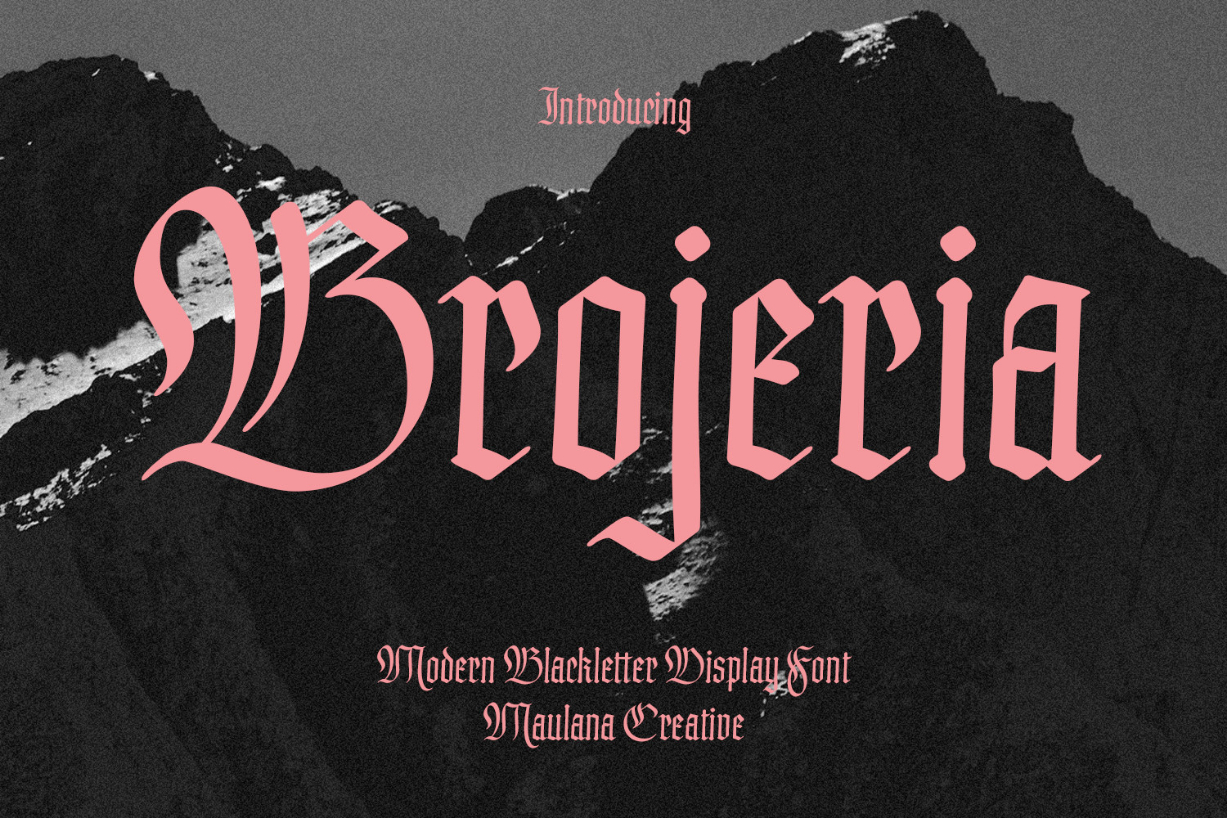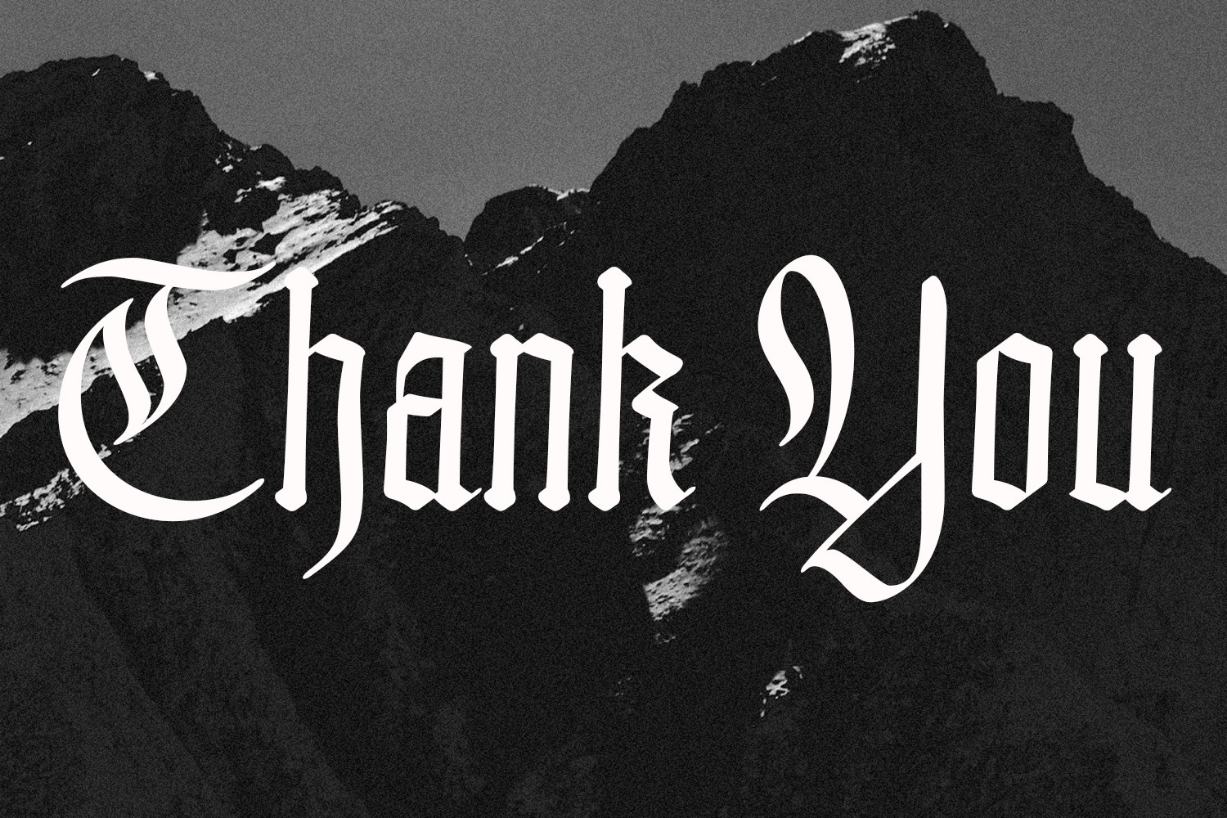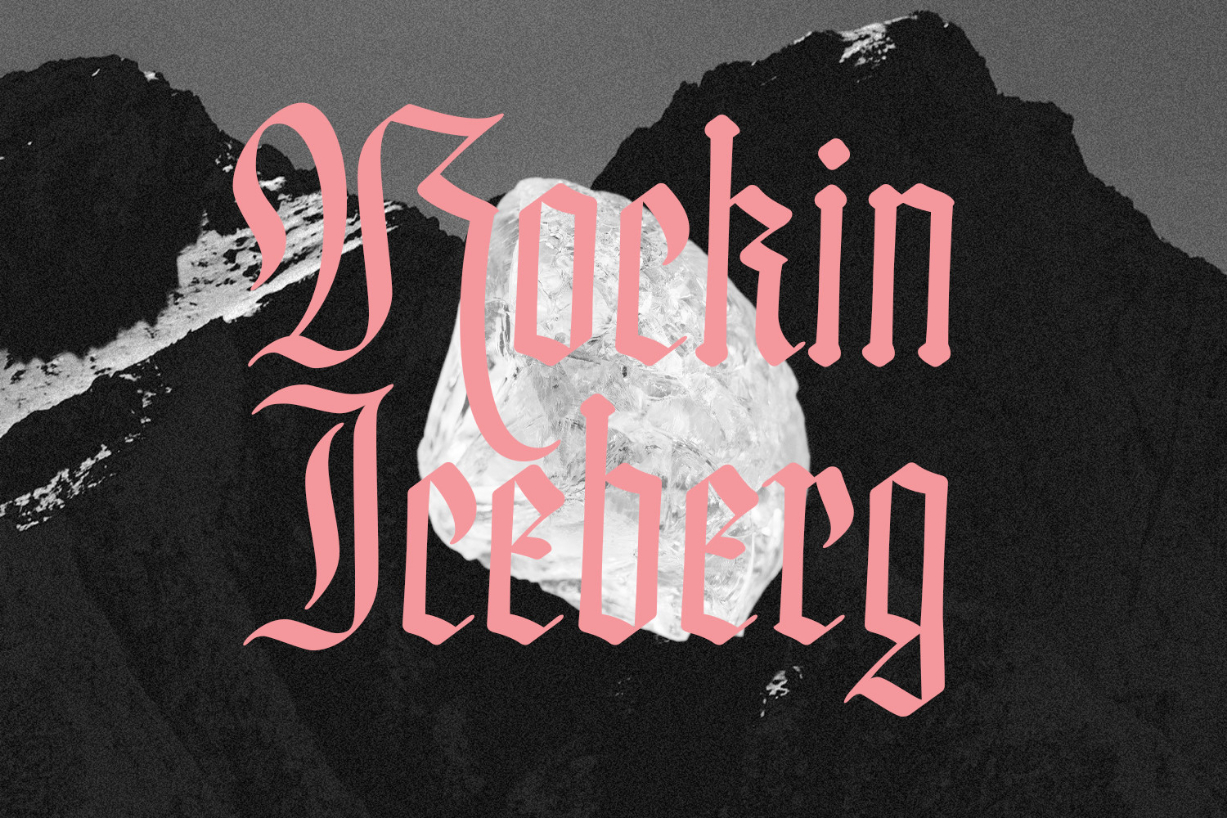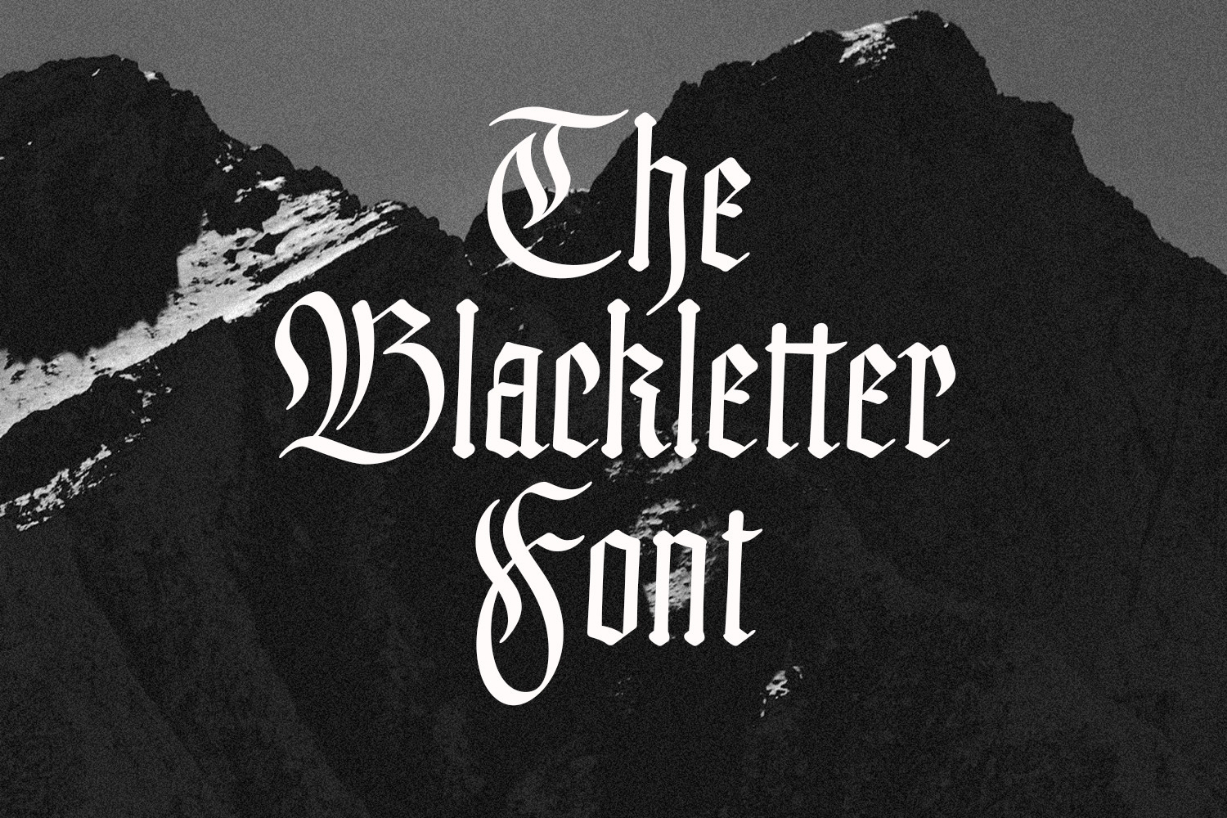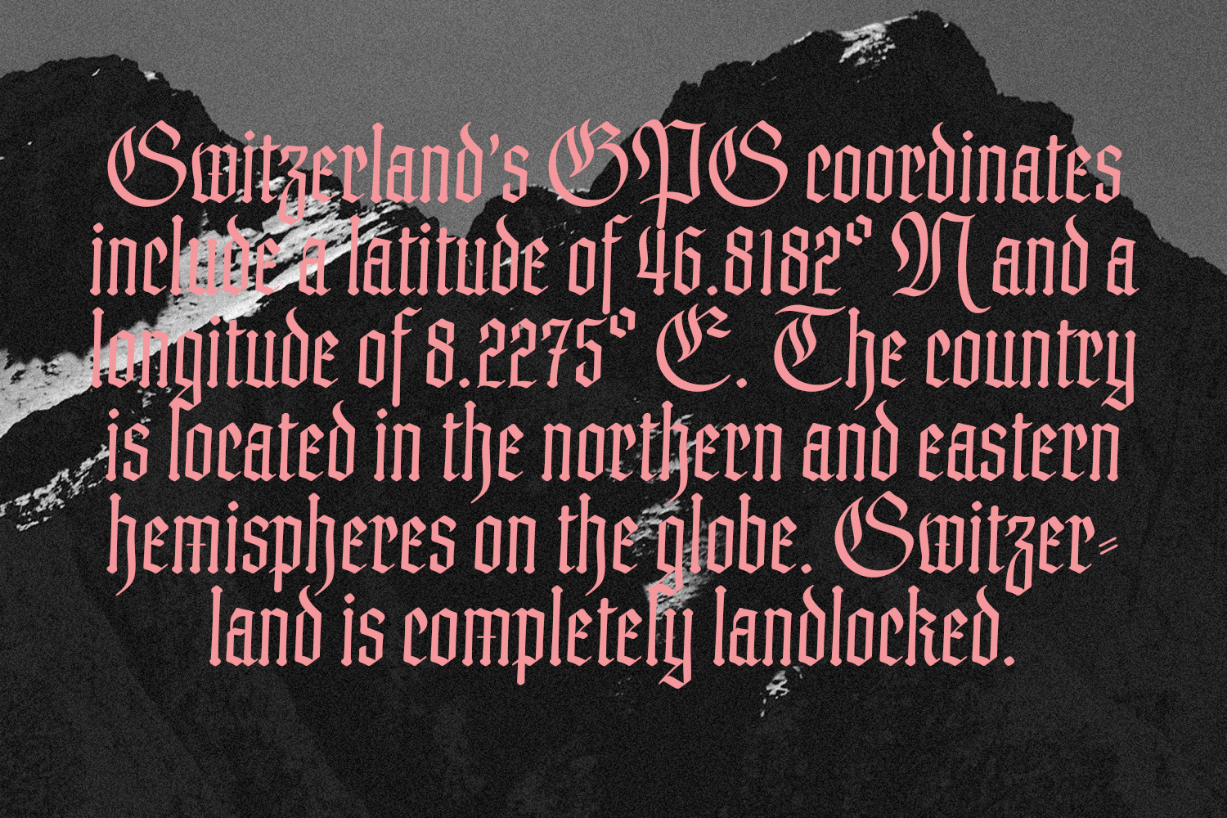
About Brojeria Font
Brojeria is a classic modern Blackletter font with medium-high contrast stroke and smooth edges, a fun character with a bit of ligature and alternates. Brojeria is good for logo design, social media, movie titles, book titles, short text, and long text, and good for your secondary text combined with a sans or serif. Make stunning work with the Brojeria font!